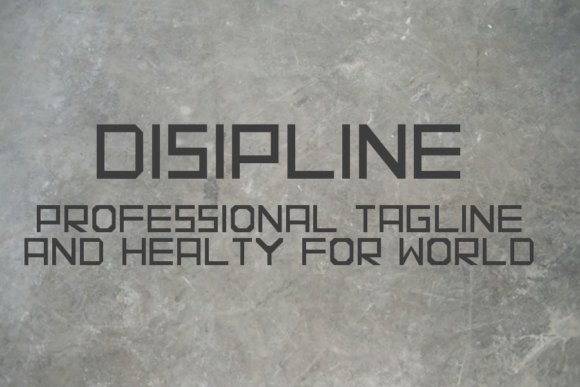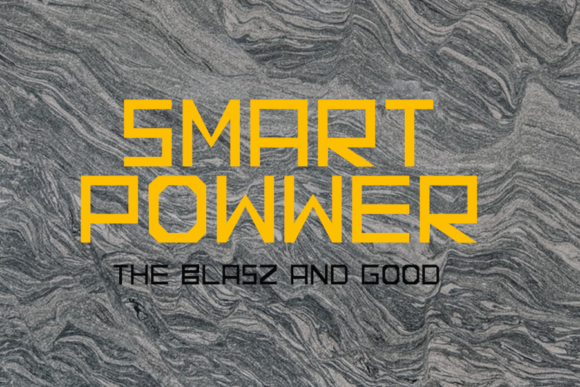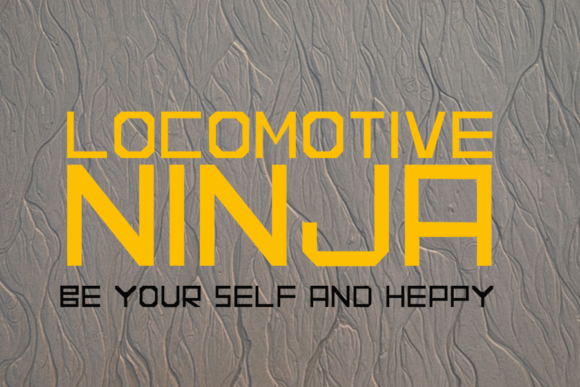
Introduction to Katterd Font
Katterd is a strong display font.
It will elevate a wide range of design projects to the highest level, be it branding, headings, wedding designs, invitations, signatures, logos, labels, and much more .
Key Features of Katterd Font
Why Choose Katterd Font?
Katterd Font offers exceptional quality and versatility, making it a valuable addition to your design toolkit. Whether you’re creating for personal projects or commercial use, Katterd Font delivers professional results.